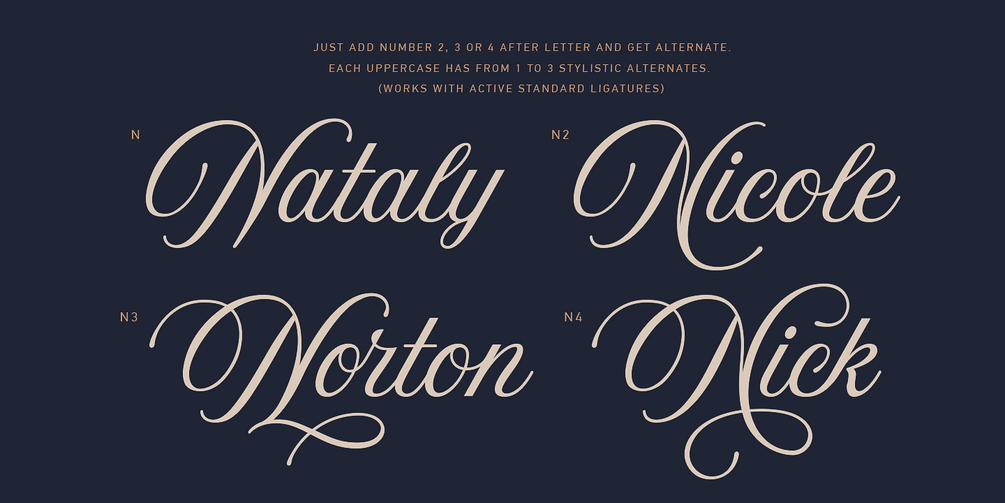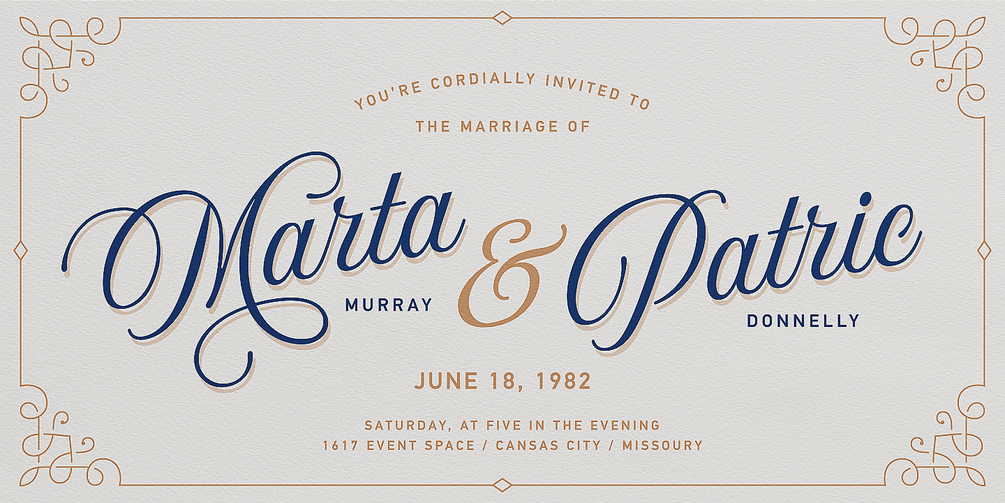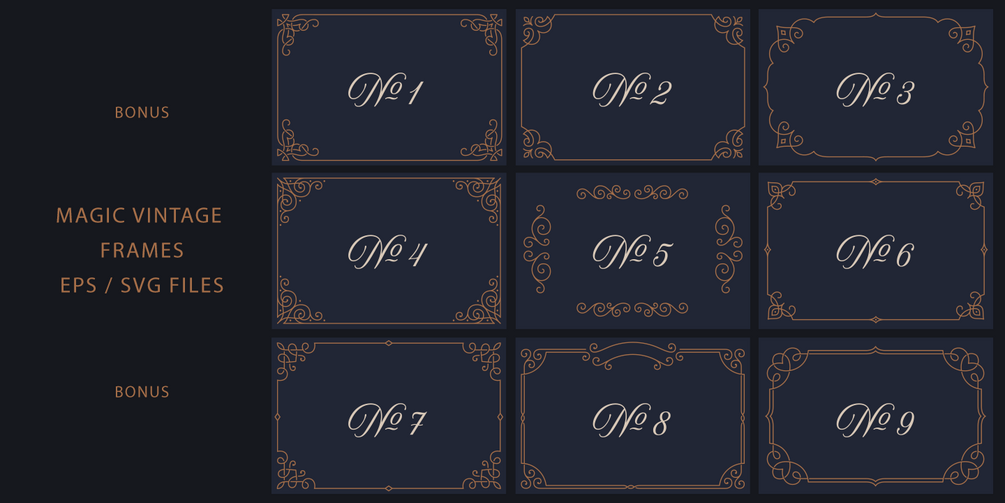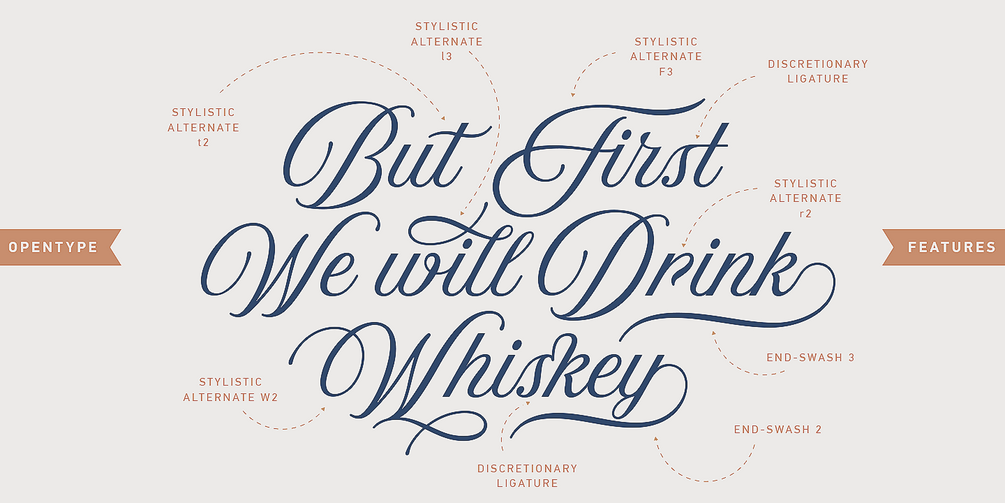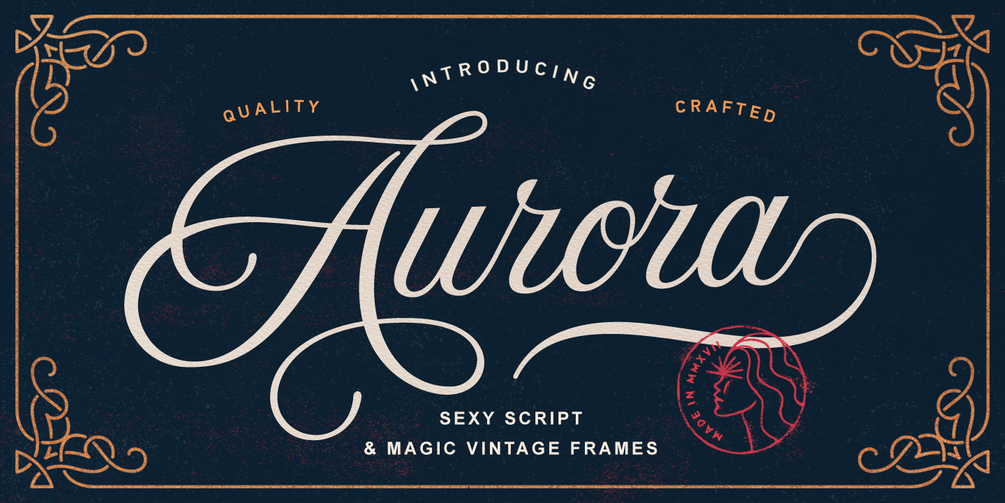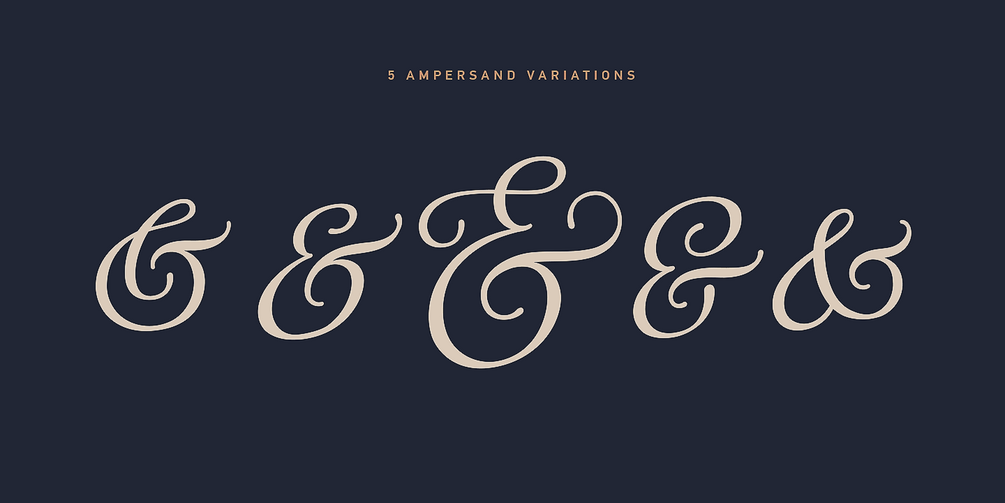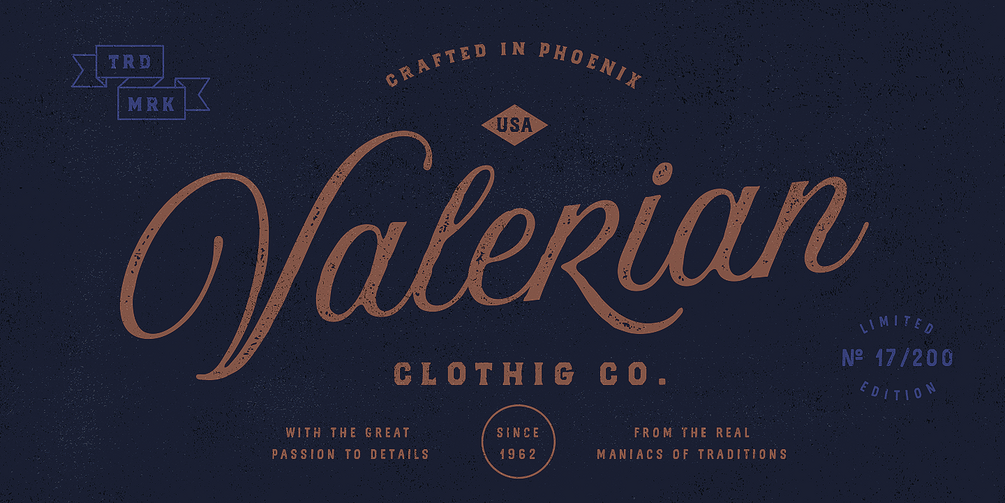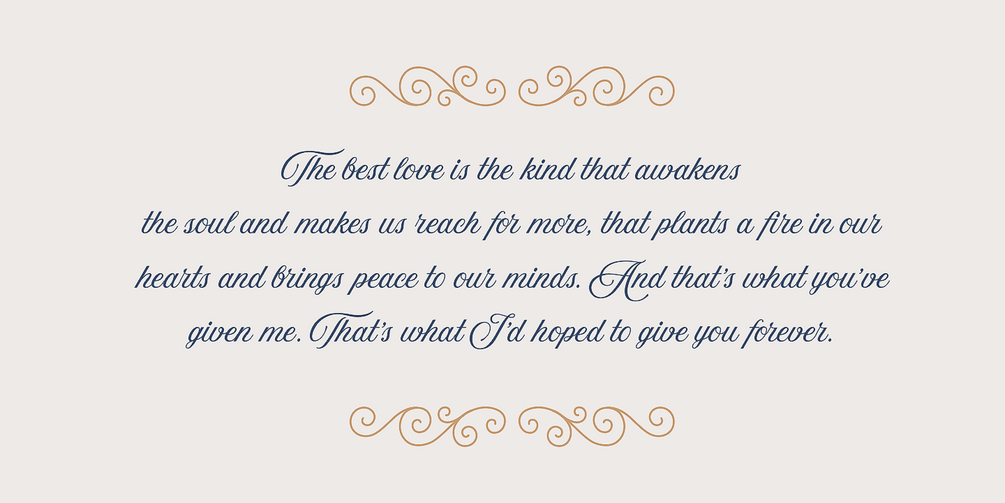
Aurora Script + 9 Vintage Frames
Aurora Script is a vintage font, handwritten under the inspiration of traditional calligraphy and the mystical soundtrack of Wojciech Kilar.
To complement the font’s character, I’ve also included a collection of decorative frames that help create an overall luxurious and elegant aesthetic.
Aurora comes in both Clean and Aged styles, featuring beautiful uppercase and lowercase alternates, ligatures, and beloved end swashes.
In my presentation, I’ve shown some examples of how this script can be used. It’s especially well-suited for logotypes, wedding invitations, alcohol labels, romantic cards, and more.
• Uppercase & Lowercase Stylistic Alternates
• Ligatures & End Swashes